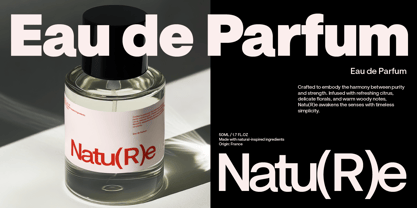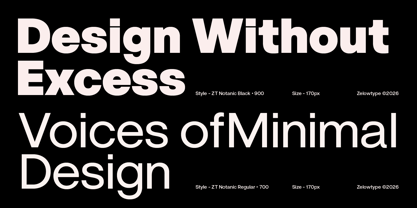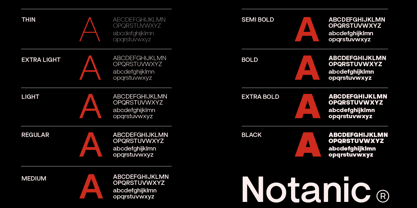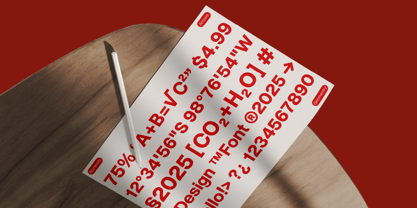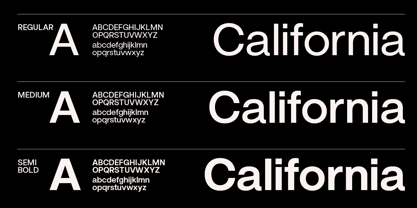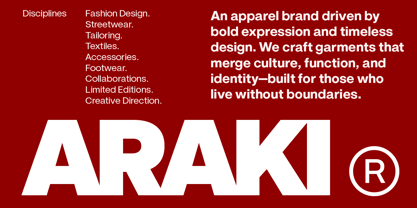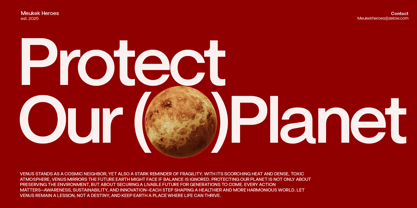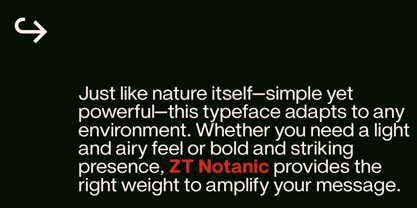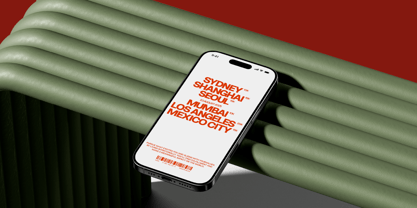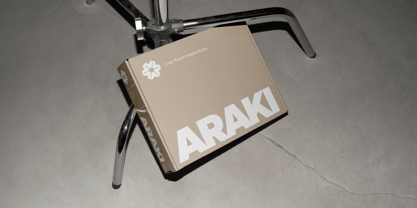
ZT Notanic
by Zelow Type
The ZT Notanic Font Family was designed by Khairun Nas and published by Zelow Type. ZT Notanic contains 20 styles and family package options. More about this family
ZT Notanic is a modern sans-serif that combines geometric
precision with an organic sense of rhythm. Developed to
function across both print and digital environments, it
offers clarity, neutrality, and adaptability without
losing its unique character. Designed for designers who
value consistency and flexibility, ZT Notanic serves as
a reliable typographic tool for contemporary communication.
With 18 styles ranging from Thin to Black and 2 variable
axes, the family provides complete control over weight
and width. Suitable for branding systems, editorial
layouts, user interfaces, and digital products. Its
structure is rooted in rational forms, yet softened with
natural curves that enhance legibility and warmth.
Carefully engineered to maintain optical balance across
all weights — performing equally well in large-scale
display and dense text settings.
Designers: Khairun Nas
Foundry: Zelow Type